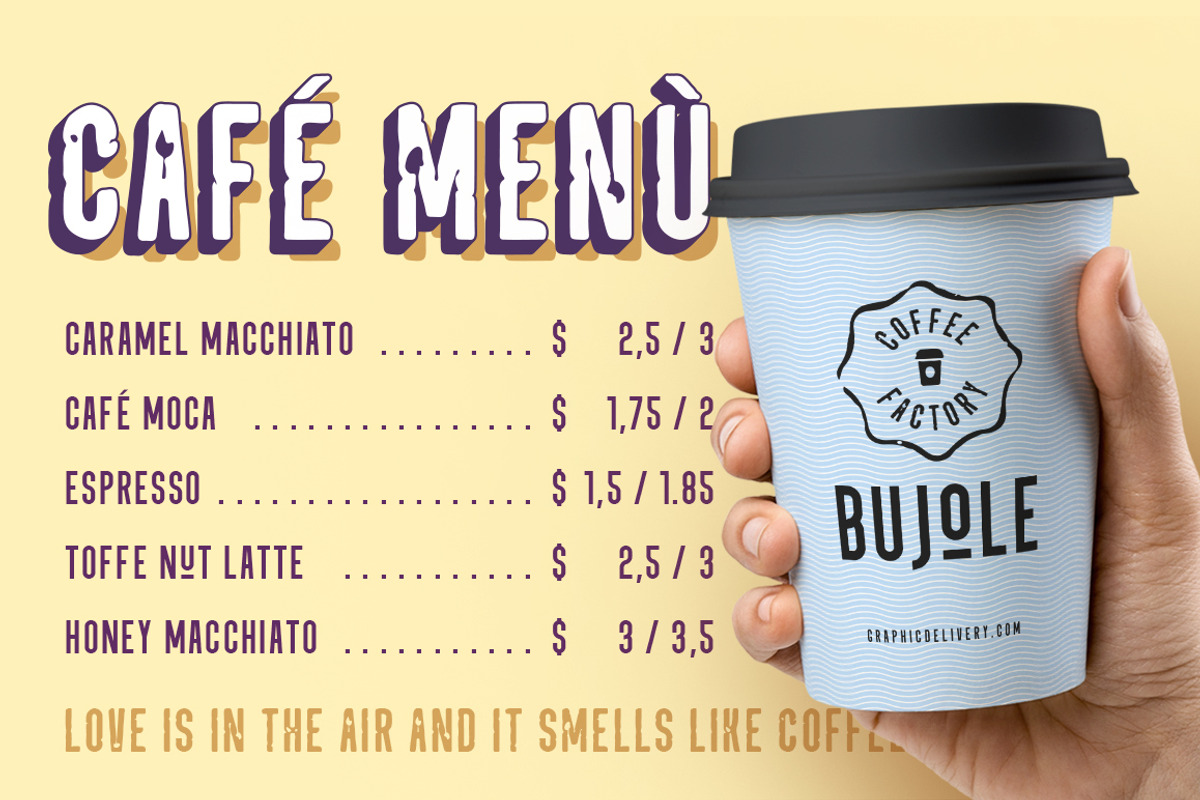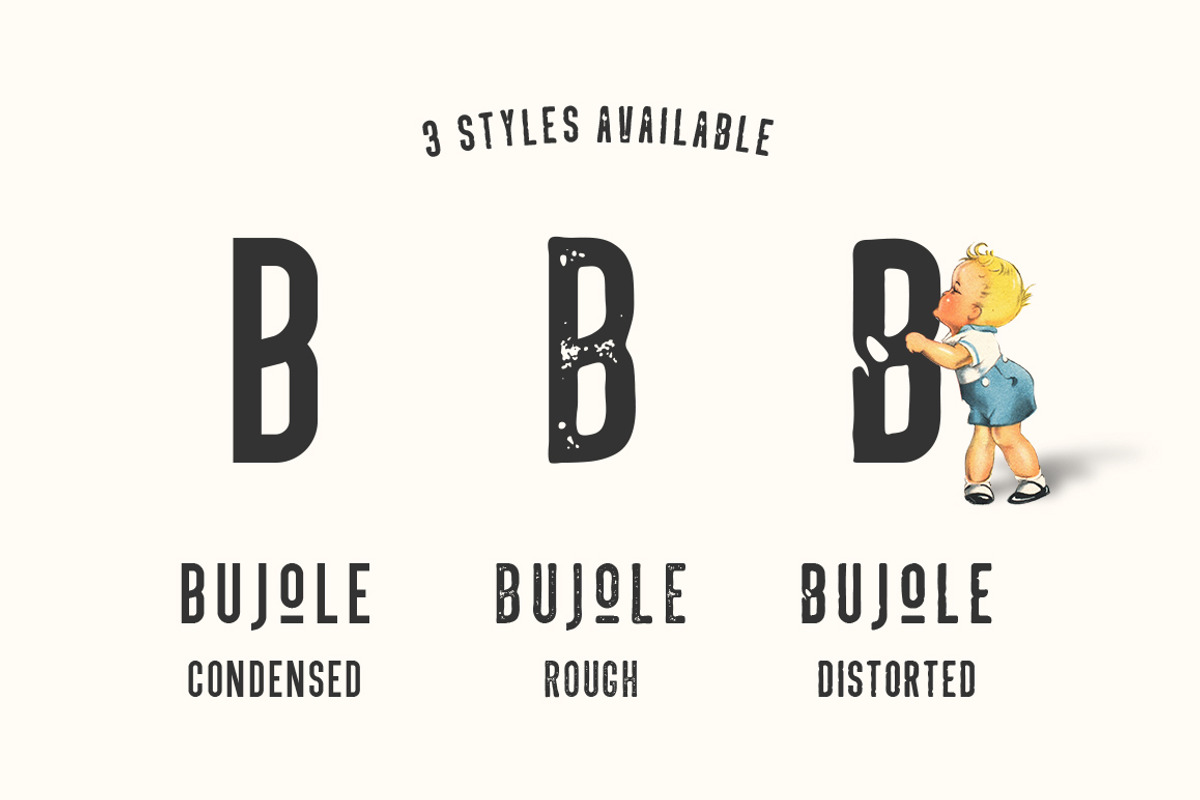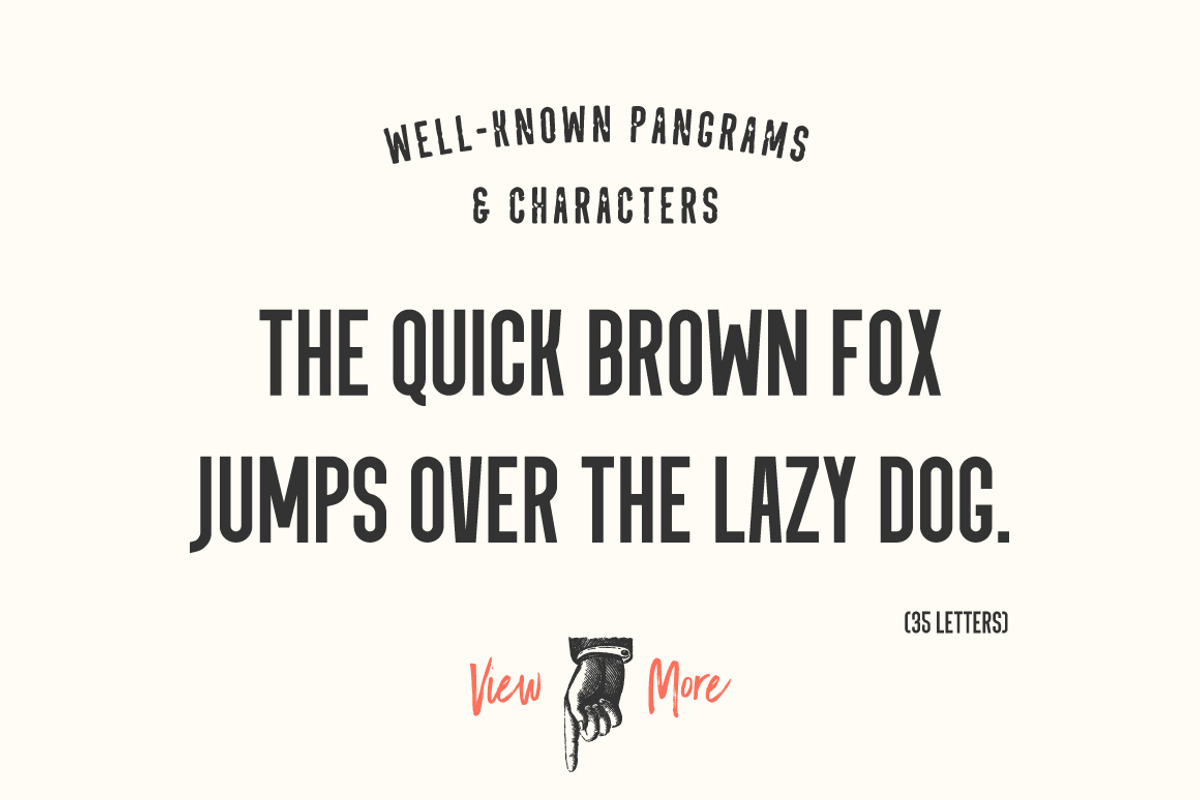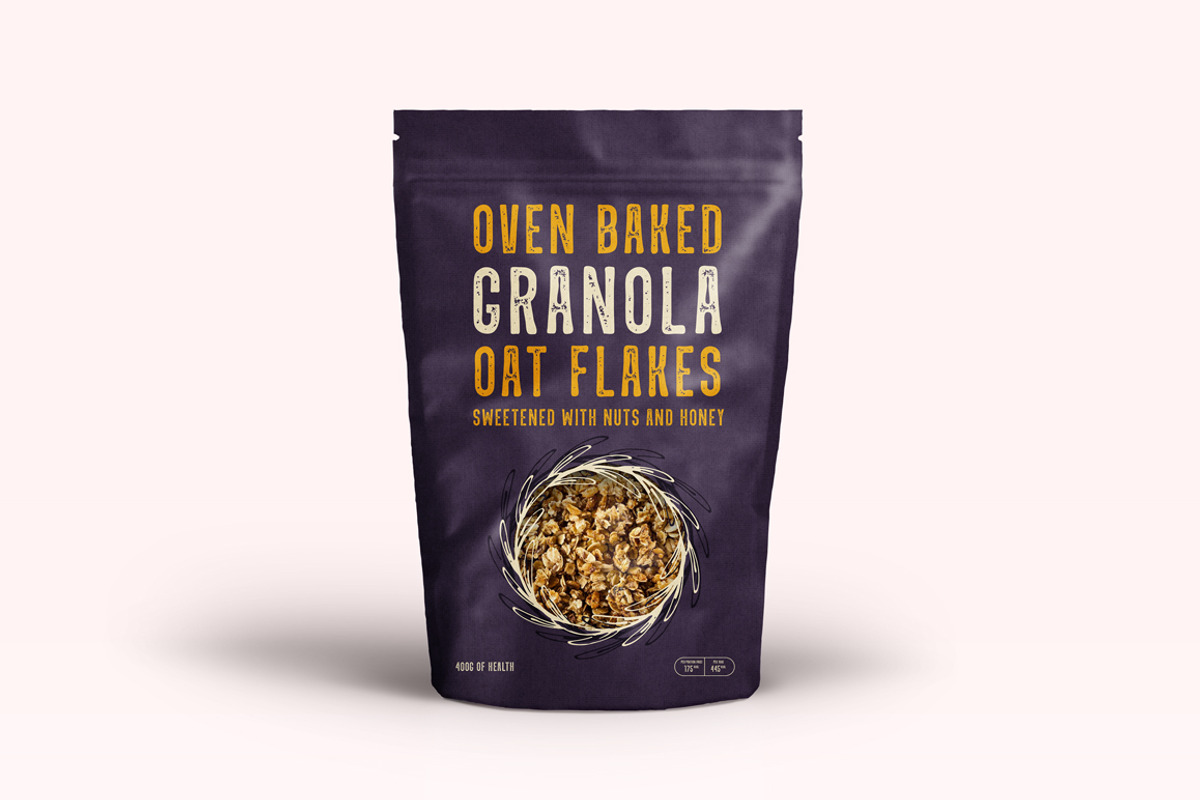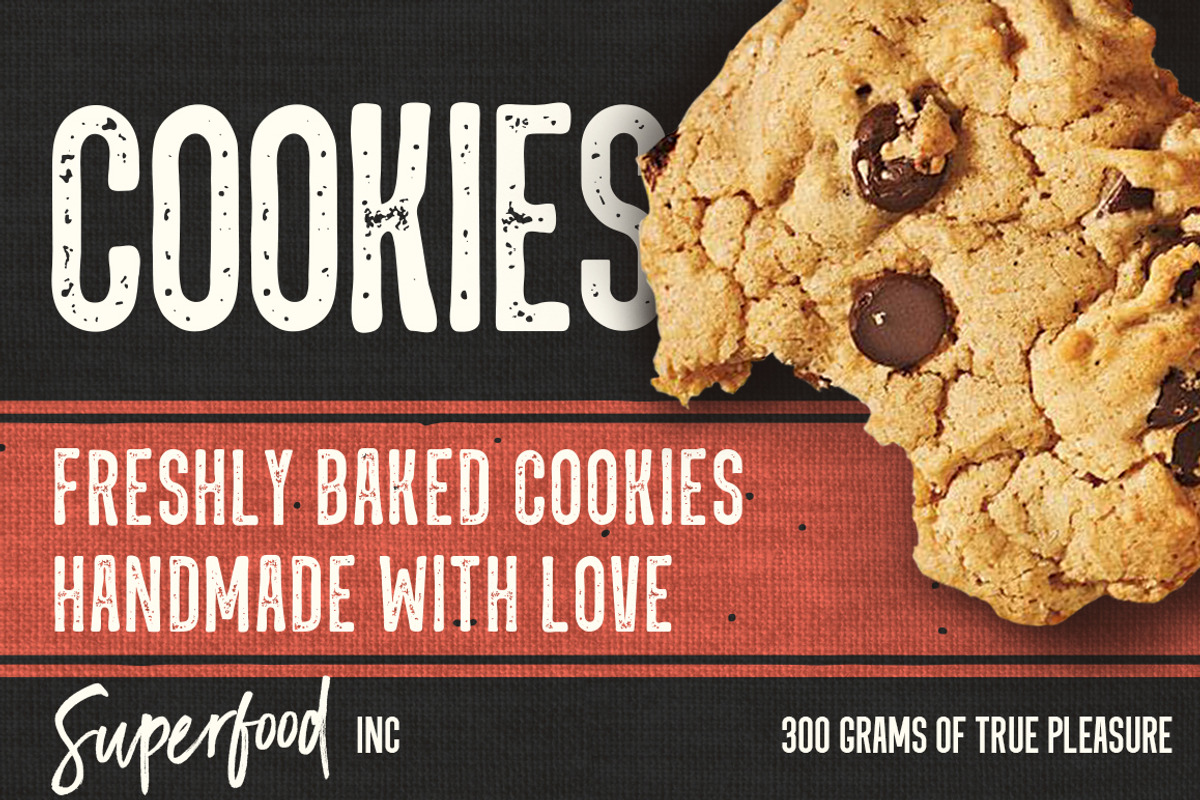
Bujole - A 3 Style Vintage Font
Bujole - A 3 Style Vintage Font by VladCristea is a font selected for branding, posters, packaging, typography.
- Bujole Condenced
- Bujole Distorted
- Bujole Rough
- Bujole Symbols
Bujole - A 3 Style Vintage Font by VladCristea fits naturally into Branding, posters, packaging, typography.